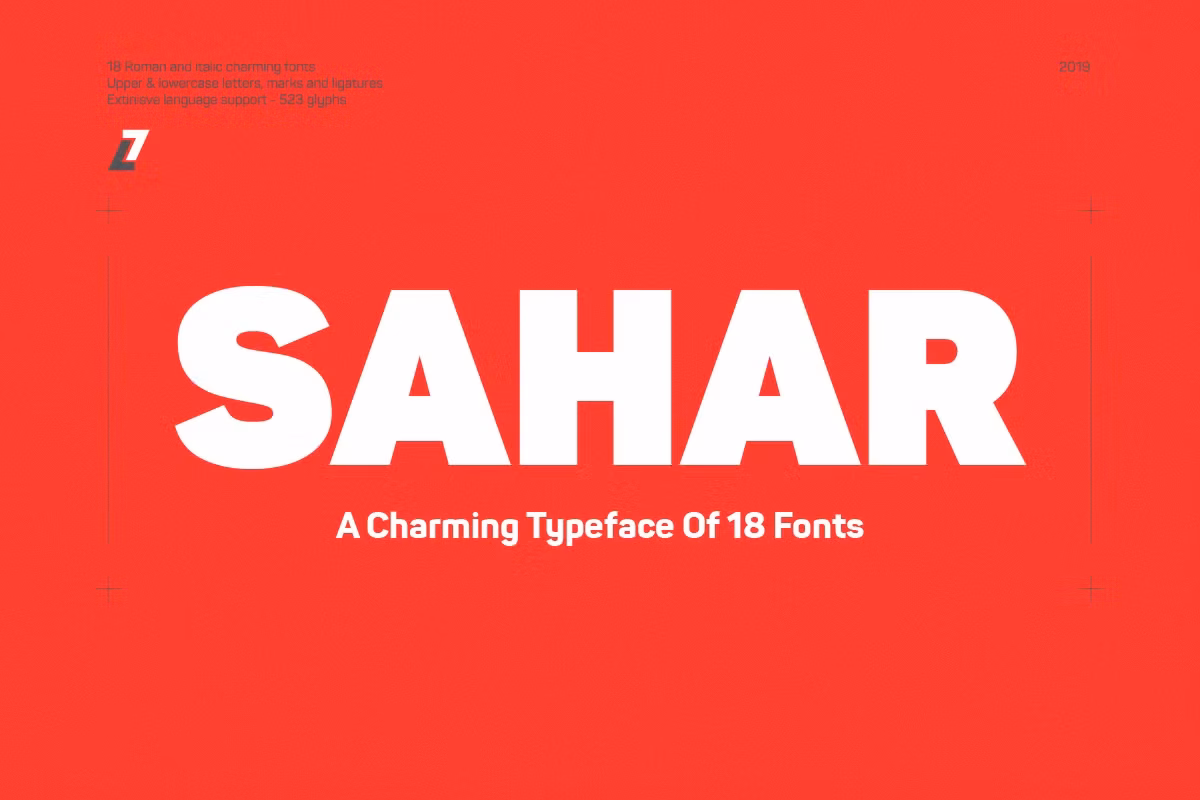
Sahar 18 Fonts Typeface Free Download is a versatile and comprehensive font collection that includes 18 different styles, offering a range of weights and variations. Perfect for a variety of creative projects, this font family is ideal for logos, branding, websites, posters, editorial layouts, and more.
With its clean lines, modern structure, and excellent legibility, Sahar is perfect for both professional and personal designs. The diversity of styles ensures you’ll have the perfect font for any project, whether you're looking for bold headers, elegant body text, or dynamic branding elements.